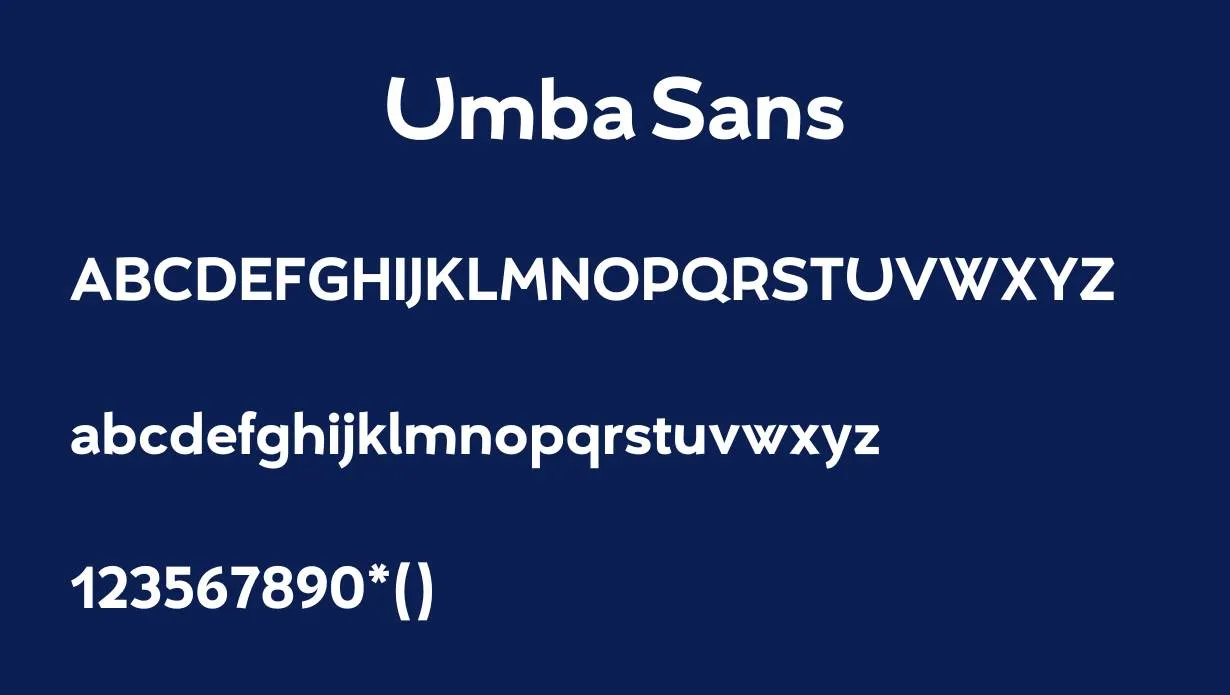
Umba Sans is a contemporary sans-serif font created for simplicity and clarity. It features clean lines and well-proportioned elements, making it adaptable and perfect for various design projects.
Umba Sans’ purpose is to provide a contemporary and neutral typeface that ensures easy readability in diverse design contexts without drawing unnecessary attention to the font itself. This font is often used in projects where a modern and straightforward appearance is desired.
| Name | Umba Sans Font |
| Designer | Anita Jürgeleit |